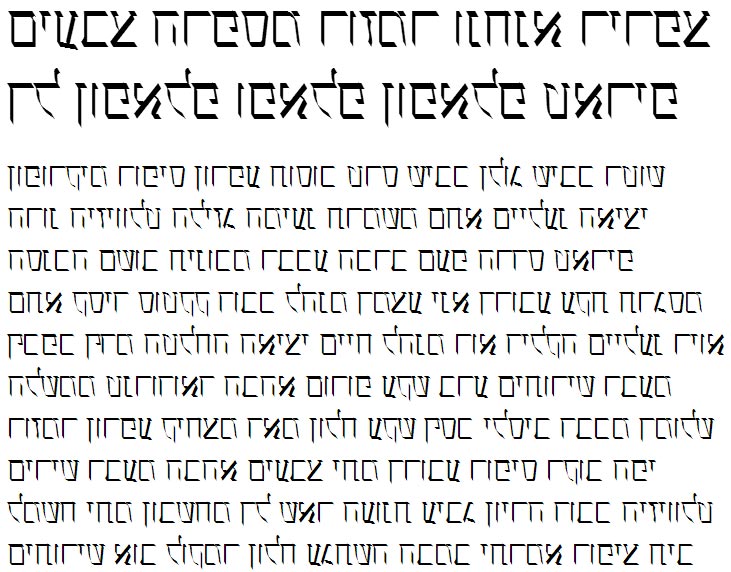
✓ The skeletal drawings of the "Lin" face were put into use once again in this font, which is actually Lin's like-caligraphic version.
X_Ilanit Hebrew Font